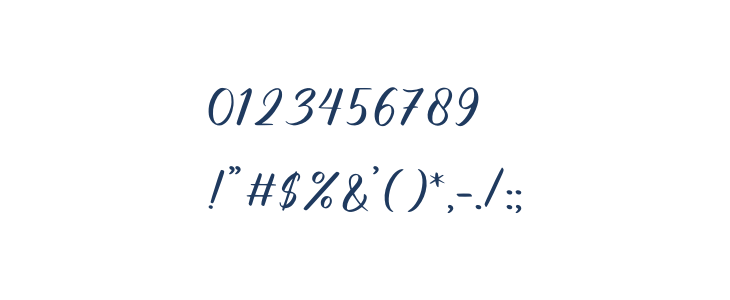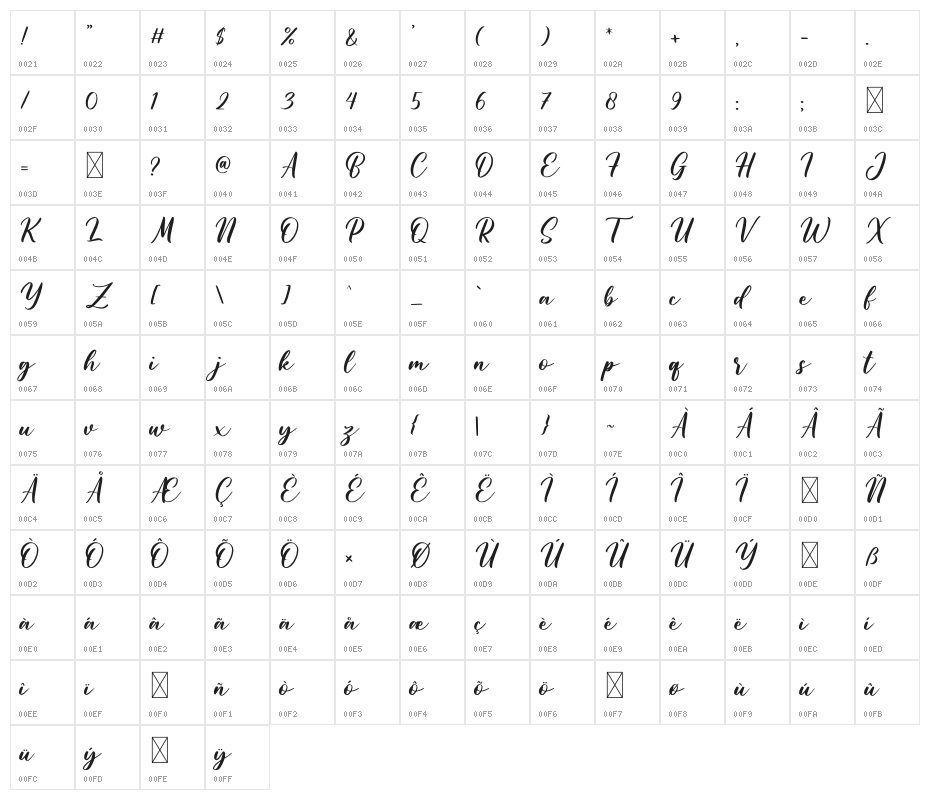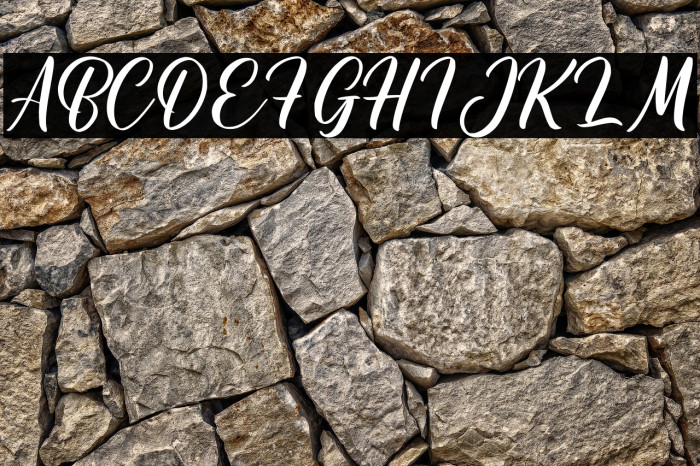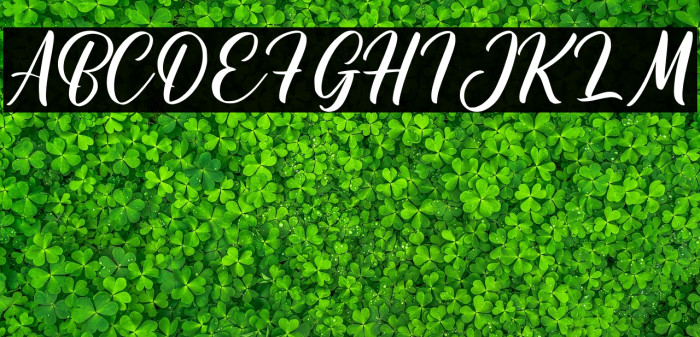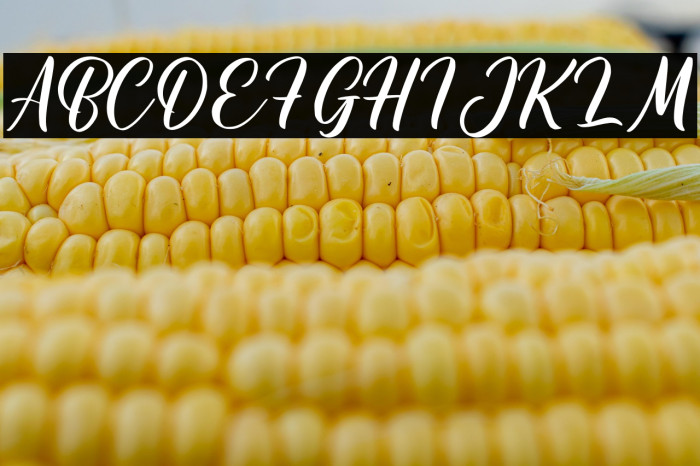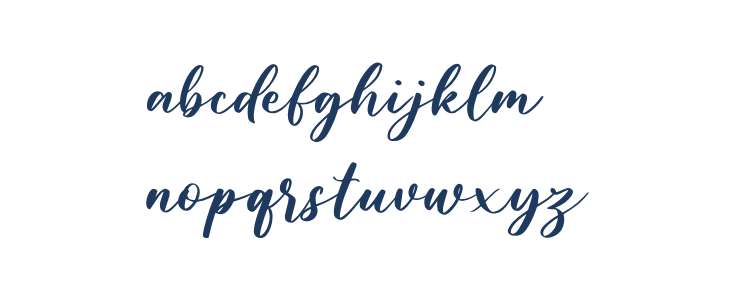
Gilas Font
Gilas Description
This font exudes elegance and fluidity, characterized by its cursive script style with smooth, flowing lines. The uppercase letters are gracefully elongated, while the lowercase letters maintain a consistent, connected form, enhancing readability. The numerals are stylishly integrated, matching the overall aesthetic. Special characters are thoughtfully designed, maintaining the font's cohesive look. The strokes vary in thickness, providing a moderate contrast that adds to the font's sophisticated appearance. This font is ideal for projects that require a touch of elegance and personal flair.
| Overall Style | Elegant |
| Use Case | Logos, Invitations, Decorative text |
| Proposed Projects | Wedding invitations, elegant branding, personal stationery, and decorative signage. |